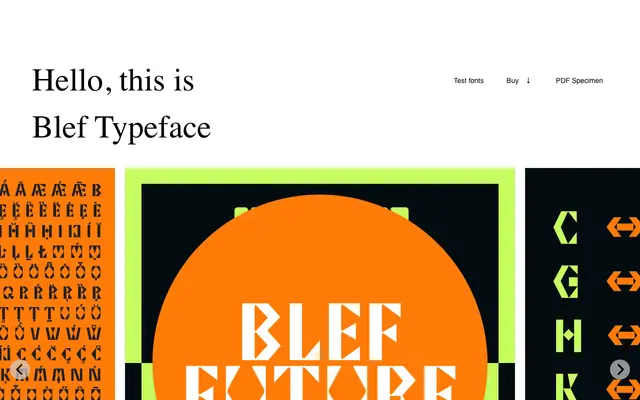
Blef
Laïc · Maciej Połczyński
A headline display typeface by Maciej Połczyński that fuses Polish folk paper cut-out patterns with futuristic, sci-fi letterforms.
Designed by Maciej Połczyński at Laïc, Blef draws on the tradition of Polish wycinanki folk cut-outs and reframes them through angular, science-fiction-inflected geometry. The family covers uppercase Latin with Polish diacritic support and a full set of figures, with a single OpenType stylistic set. Its name references the Polish word for bluff, hinting at the typeface's playful tension between tradition and futurism.
Blef is a headline-only typeface combining folk paper cut-out motifs with sci-fi geometry, making it firmly display and decorative in character rather than fitting any conventional text category.